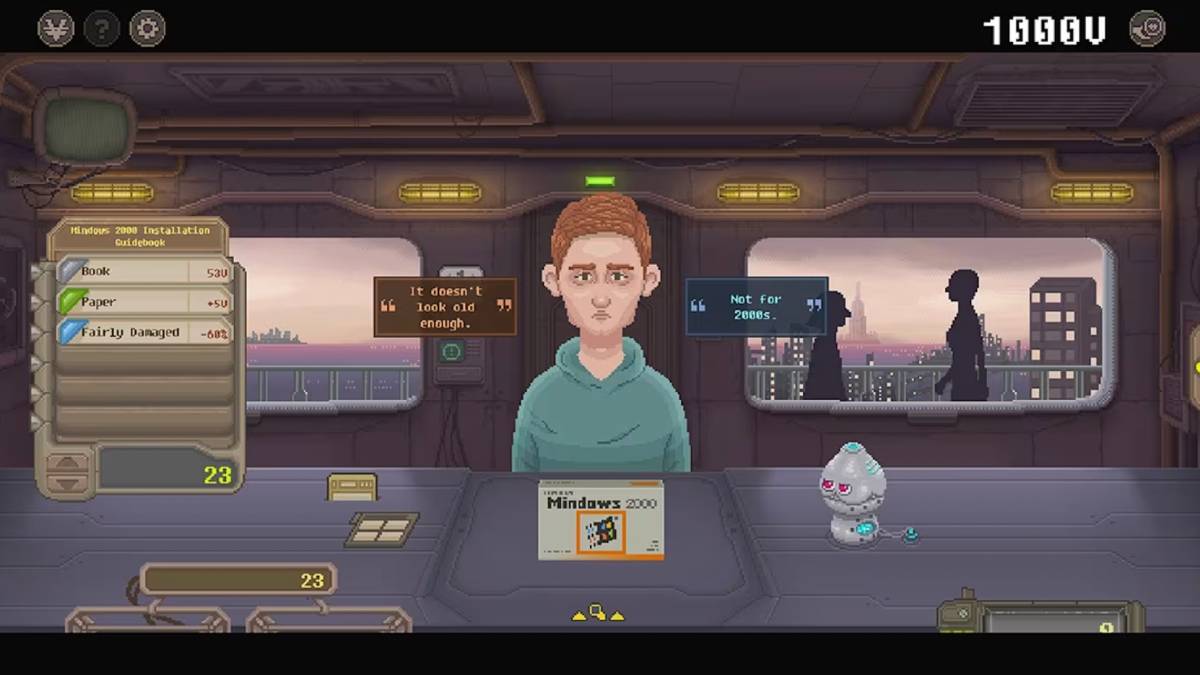
When I got the opportunity to play No Umbrellas Allowed, I checked out the June 2023 “Announce Trailer” and thought it seemed interesting. There’s shop management. There’s political intrigue. I figured I’d play it on the Switch, my most used system, and pick at it between other games. However, because of the font used in No Umbrellas Allowed on the Switch, it is unplayable in handheld mode and unpleasant in when the system is docked and connected to a TV.
I suppose a little research on my part would have helped hint at this issue. The “Announce Trailer,” which you can see below, hints that there could be an issue if you don’t watch it in full-screen on YouTube. The text seems uncomfortable in text boxes, even though it is black script set against a beige background. The UI for the cards in the bargaining section can look a bit cluttered, when statements are too long or they get in the way of the colored highlights explaining what type it belongs to. However, it seems like it would still potentially “work.” The fact that the trailer also didn’t note which version of the game we’re watching also makes it seem like it could be fine.
However, a peek at the Nintendo Switch eShop listing for No Umbrellas Allowed makes the issue far more evident. Attempting to read any screenshot set in the shop or with ambient dialogue when moving through the city is brutal. Fonts are unacceptably tiny and unreadable. Ones that are larger can be a bit blurred, due to stylistic directions. In the UI showing information about the product being brought into the shop, we have beige text on a coffee-colored background, which can be quite difficult to read. Especially in the situation when a person is attempting to sell a “Mindows 2000 Installation Guidebook” example.
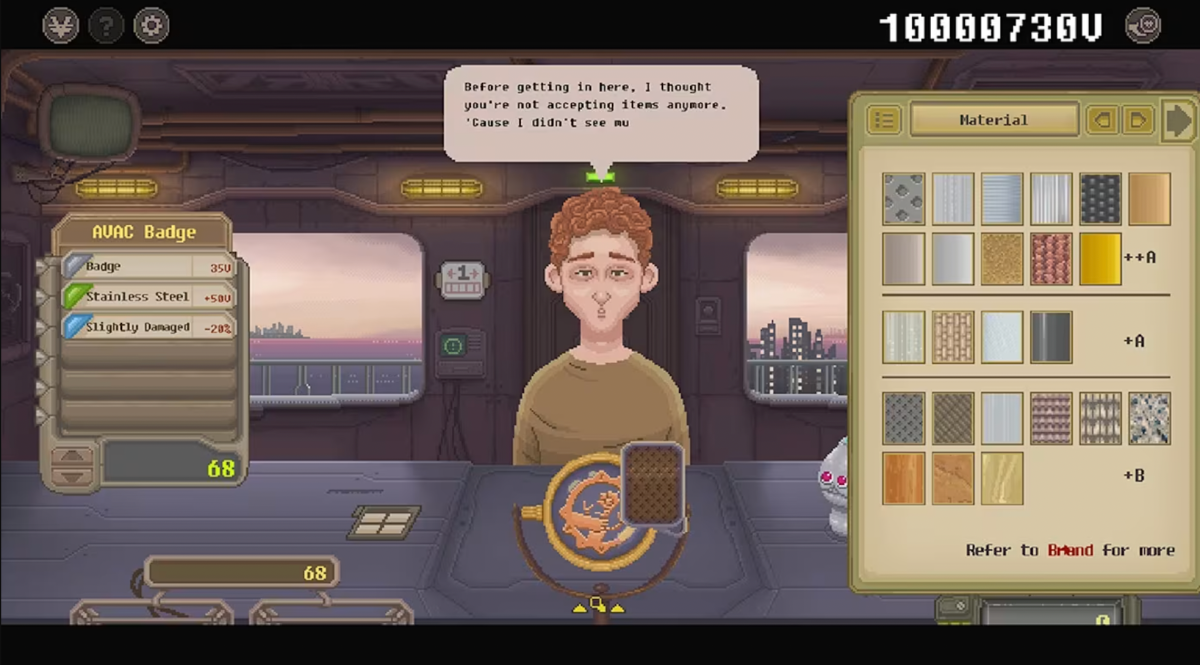
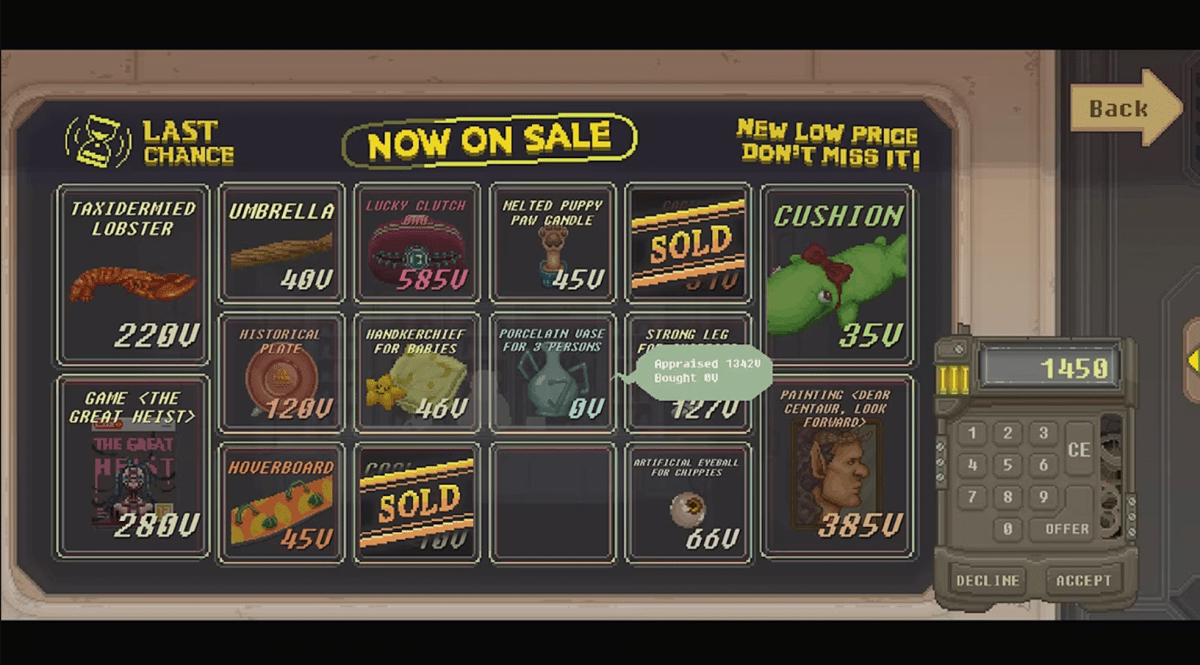
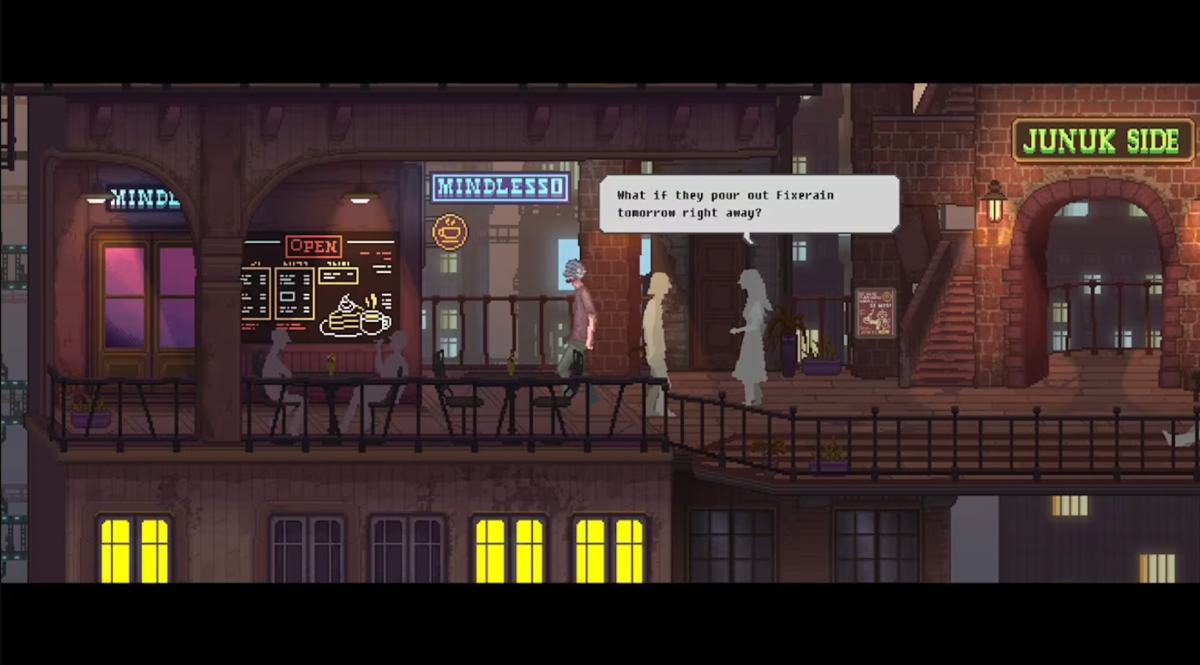
When I attempted to play when docked, things were a bit better. However, it still meant I was in a situation that necessitated my sitting within two feet of my TV. Even then, I sometimes needed to lean forward to make out some text. Eventually, I even resorted to visiting my mother to borrow a magnifying glass, but my eyes still ended up irritated and bloodshot after an hour gaming session. Worse yet, because the dialogue auto-advances, as you’re trying to make things out you can miss information.
Which is a shame, because Hoochoo Game Studio had such an interesting idea! A futuristic dystopia where a government is using a substance called Fixerain on cities to influence people! A group that fought back and sabotaged them in the hopes of delaying the rollout to a final city and buy more time! A protagonist who seems to be involved, finds a pawn shop owner willing to cover for him, and in a situation where there’s a suggestion that umbrellas could somehow come in or maybe some sort of influence could be exerted. I wanted to learn more! I wanted to manage this store.
I wanted to play (and like) No Umbrellas Allowed on my Switch. Unfortunately, unless there’s some sort of patch, I don’t think that is in the cards. Given how directly it seems to pull from the 2021 PC version, which seems to have a similar issue, maybe that won’t be in the cards.